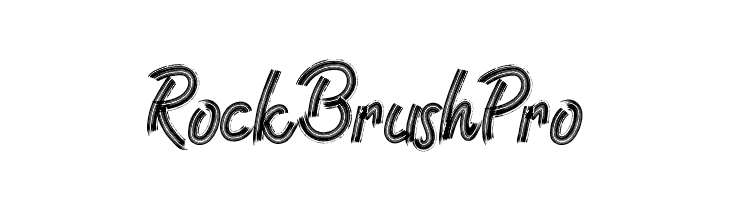
A bold, angular font with a futuristic and dynamic design.
An artistic and decorative font with intricate flourishes and swirls.
A bold, angular font with a dynamic, hand-drawn style.
A bold, geometric font with a modern and structured appearance.
A playful, bold font with a comic book style and hand-drawn appearance.
A playful, handwritten font with bold, rounded strokes and a casual feel.
An elegant, flowing script font with a handwritten style.
A bold, playful handwritten font with thick strokes and rounded edges.
A bold, dripping font ideal for horror and Halloween themes.
A playful, hand-drawn script font with connected letters and a dynamic style.
设计师偏爱 Omega Rex Bold, FancyPens, StillTime-Regular, TT Bricks Trial Bold and Comic Vaganza,因为其造型干净、适用范围广—— 从品牌识别到落地页、海报都能胜任。